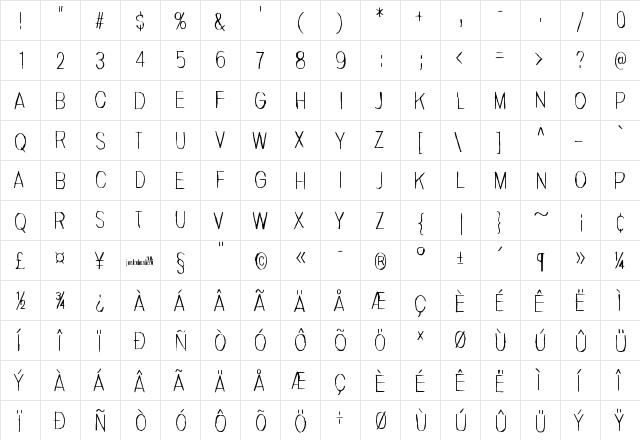
Invisiblerror Regular
| Foundry | junkohanhero |
| Designer | junkohanhero |
Design Context for Invisiblerror Typeface
Invisiblerror offers clean, dependable letterforms without strong stylistic allegiance, making it a practical choice for designers who need flexibility.